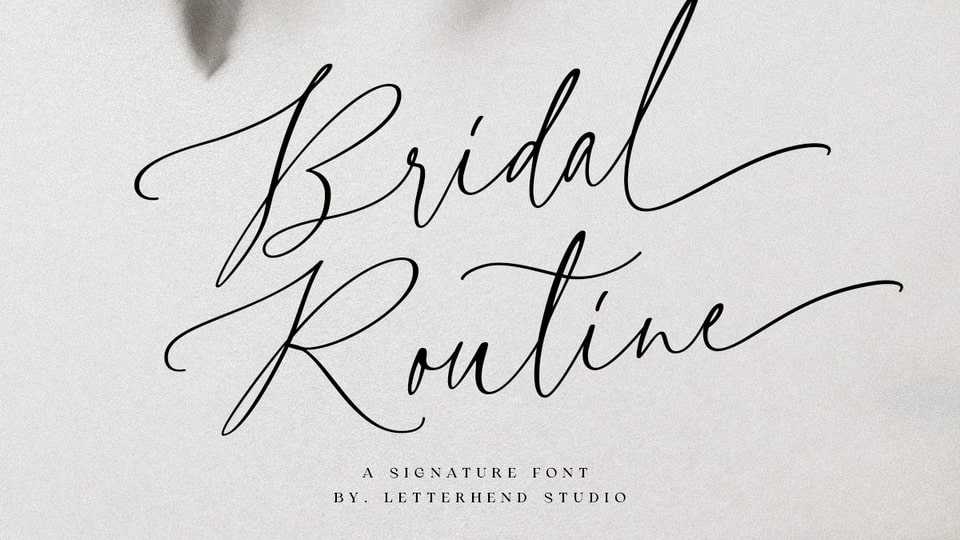
Download Bridal Routine font, a beautiful signature script based on manual hand writing. The stylistic alternate, ligatures and the tick and thin stroke make Bridal Routine font looks a real hand writing instead of typing a font.